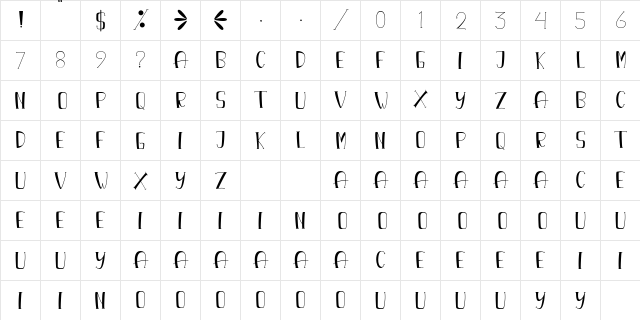
Banana Sweet Regular
| Foundry | Savira Faeyza Art |
| Designer | Savira Faeyza Art |
Design Context for Banana Sweet Typeface
Banana Sweet is a composed and adaptable typeface that performs quietly and consistently across a wide range of design contexts.